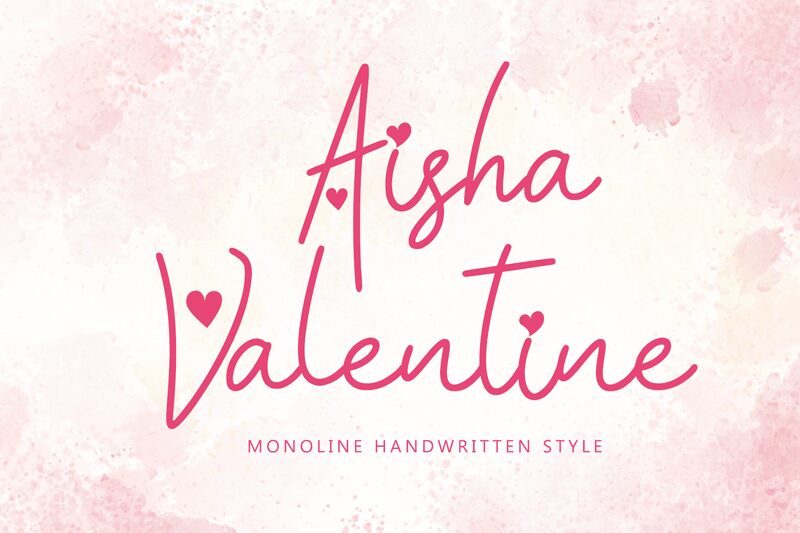
Aisha Valentine font designed by Yoga Letter is a free holiday font with a handwritten monoline design. It is casual with a romantic style and exhibits a modern appearance. The font characters are personalized and inviting, with a touch of elegance and visible expressiveness. Each letter flows naturally into the next, similar to the cursive we are all familiar with. Use it to bring a special personalized identity to your different projects.
Loved by young and old, it is perfect for posters, greeting cards, holiday designs, and many more. Use it for your personal invitations or design stickers and logos that stand out by themselves. Mixing between each letter and taking advantage of the upper and lowercase combination allows each user to immediately distinguish its presence.